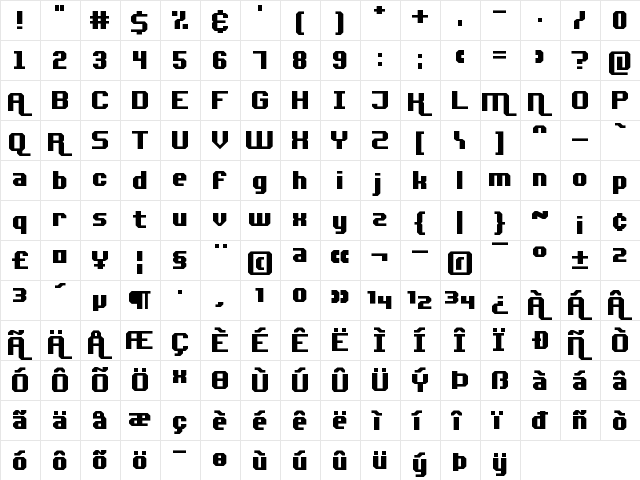
Adventure ReQuest Regular
| Designer | GameDevDan |
Design Context for Adventure ReQuest Typeface
Adventure ReQuest is a composed and adaptable typeface that performs quietly and consistently across a wide range of design contexts.